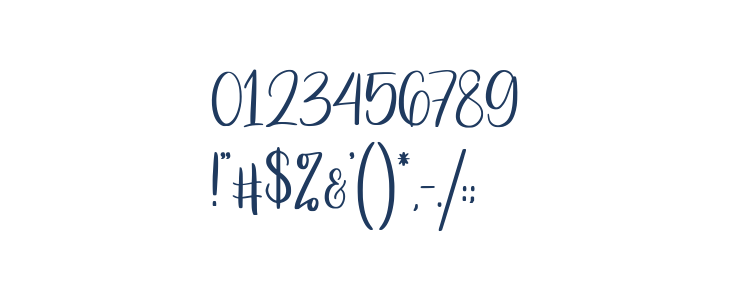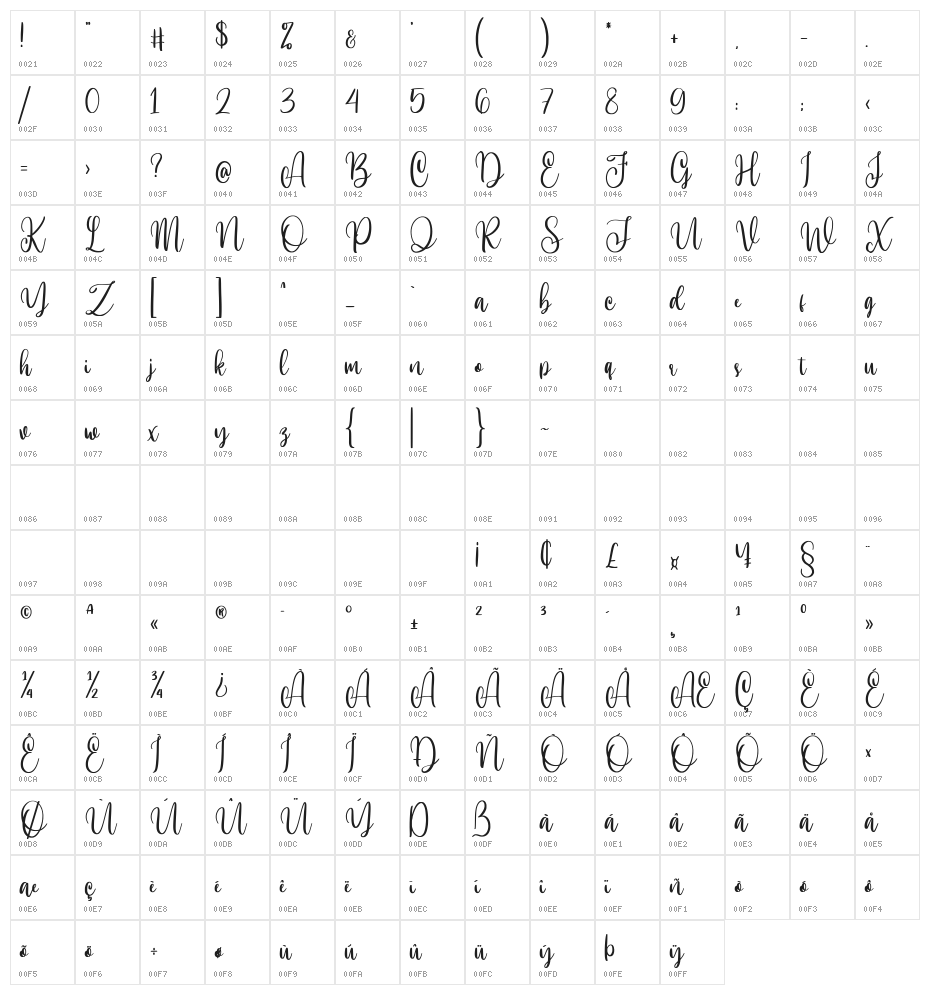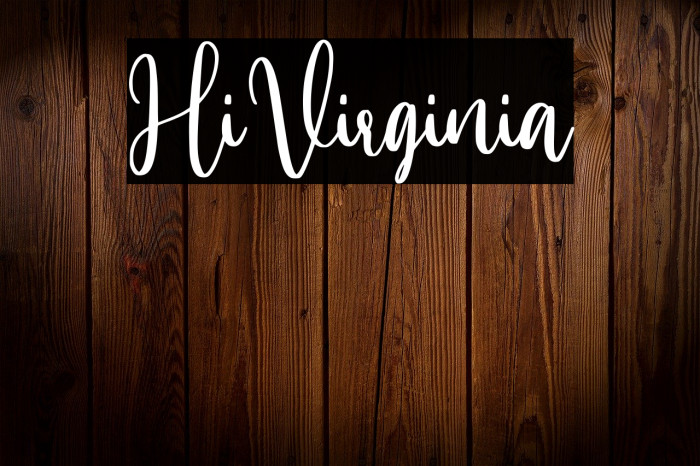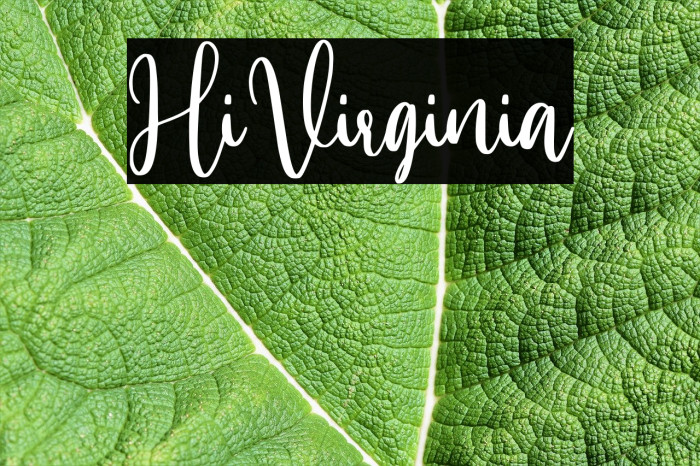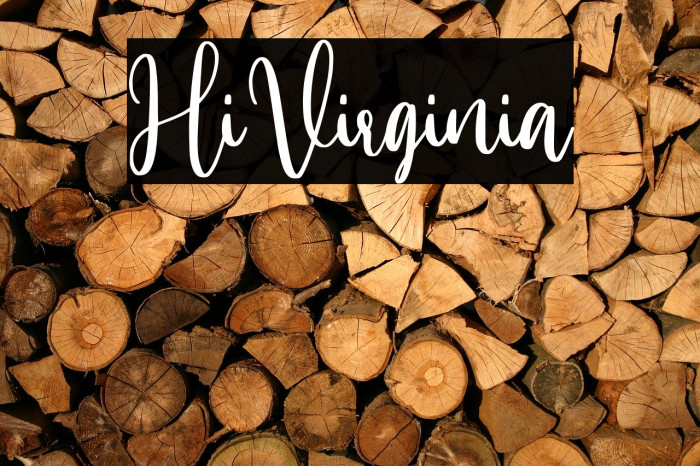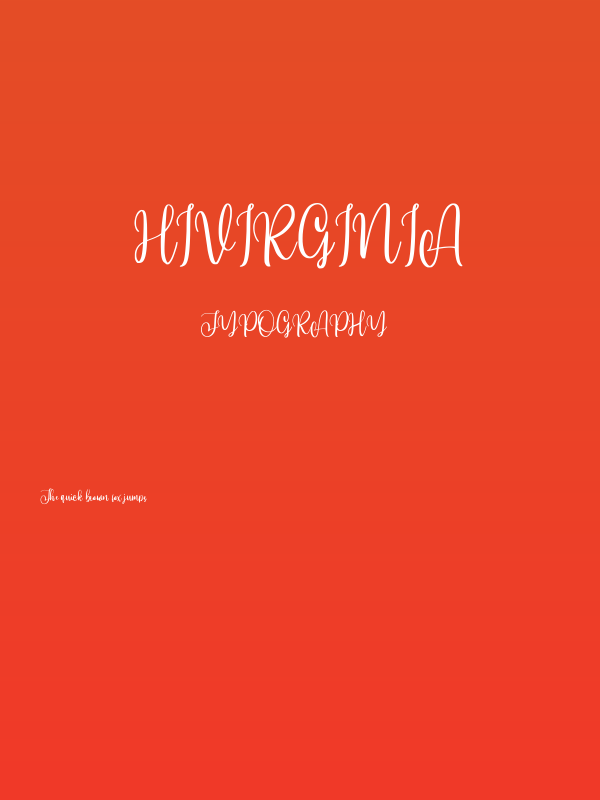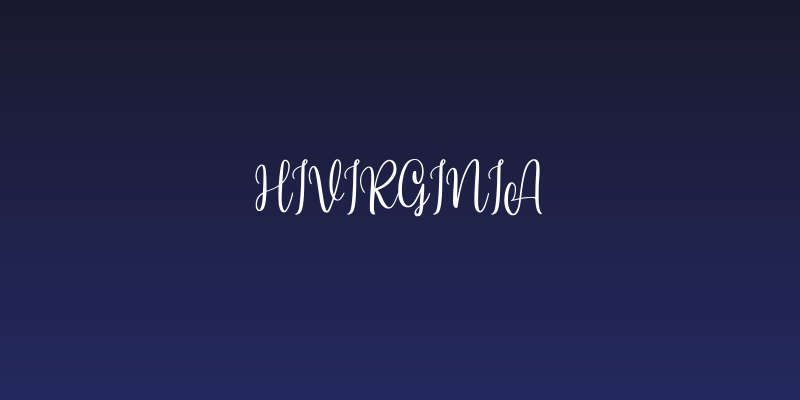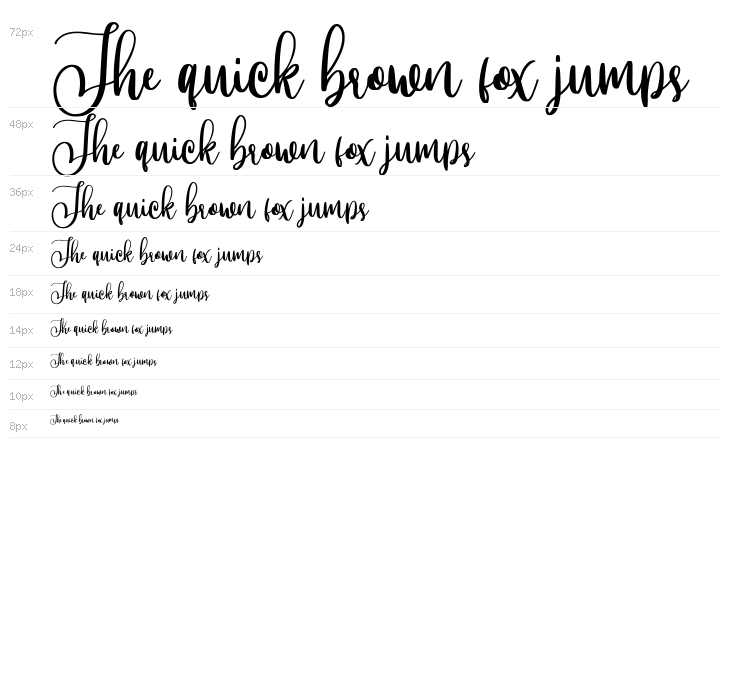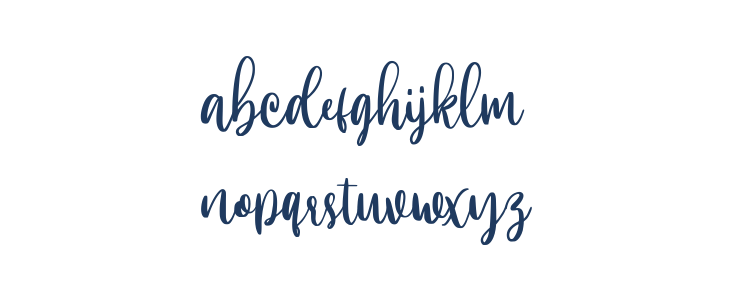
HiVirginia Font
HiVirginia Description
This font exudes a playful and elegant charm, characterized by its flowing script style. The uppercase letters are intricately designed with loops and flourishes, giving them a whimsical yet sophisticated appearance. The lowercase letters maintain a smooth and consistent flow, enhancing readability while preserving the font's artistic flair. Numbers and special characters are crafted with the same attention to detail, ensuring a cohesive look across all elements. The overall design is reminiscent of hand-drawn calligraphy, making it suitable for projects that require a personal and artistic touch.